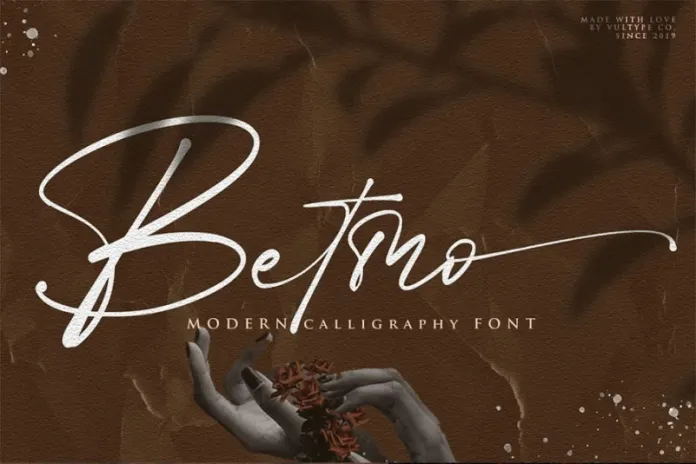
Itโs a beautiful modern calligraphy script typeface inspired by a luxury fashion. Contemporary handwriting fonts with ligatures and alternative styles ready to add unique look and bloom on your design
It easily cooperating together For Magazine, Movies, or Book Titles. For Photography, Wedding Invitation, Restaurant Menu or T-shirt Design. For Flyers, Banner Ads, web and printing. From Food and Fashion to a Cosmetics product